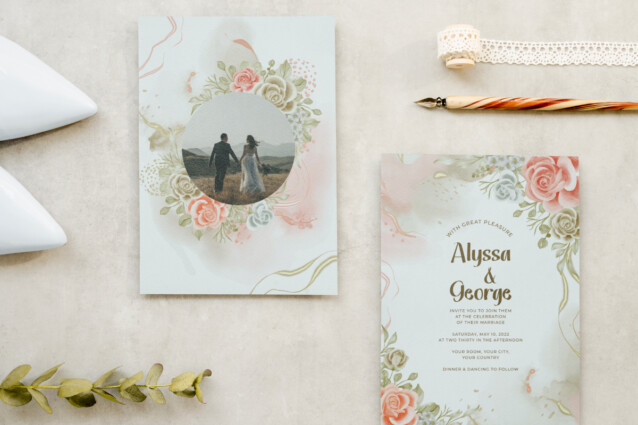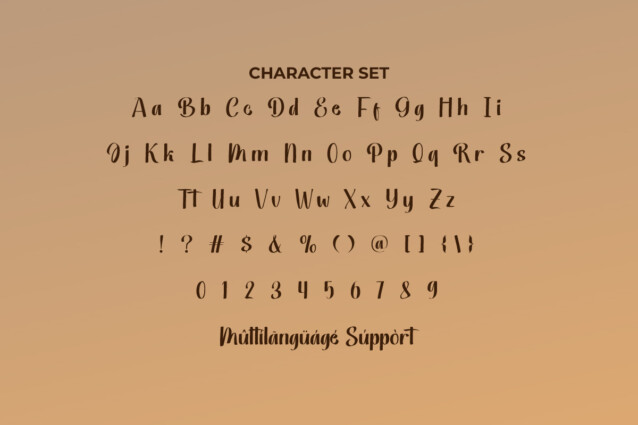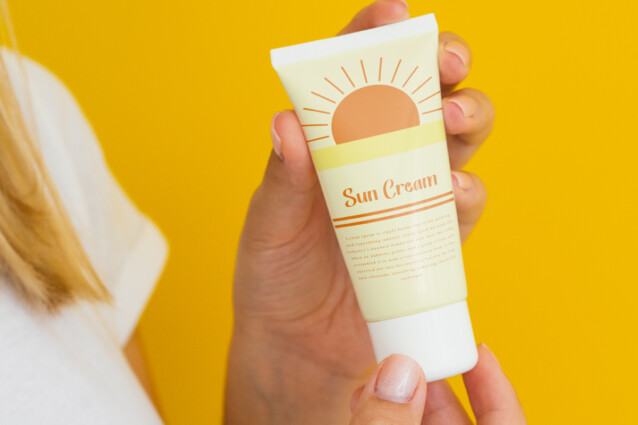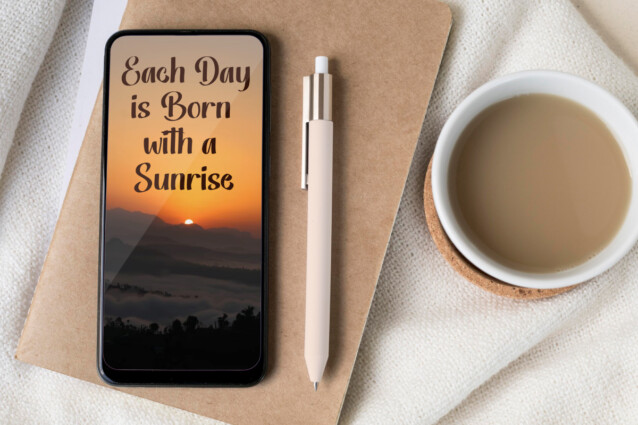
Better Sunrise Font
Better Sunrise Font is a modern display font with beautiful brush strokes around each character, created by CalligraphyFonts. This typography is one of the many types of lettering with an understated look that will be perfect for any creative project, such as apps, billboard, brand logo, brochure, business card, flyer, greeting card, header, invitation, label, product packaging, poster, price tag, quotes, screen print, stationery, title, website, and many more.